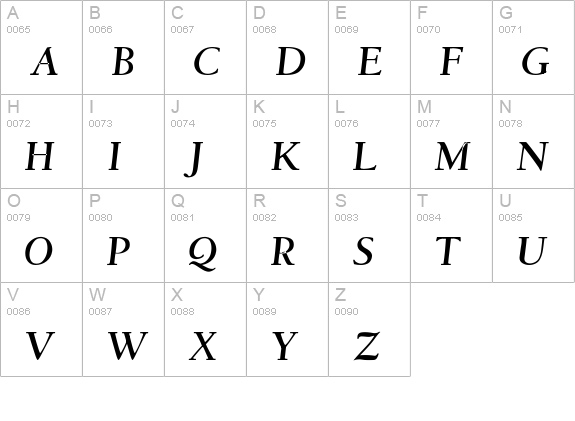
PCHeatherville Font Details
Introducing PCHeatherville font, a delightful and versatile typeface that adds a touch of elegance and sophistication to any design project. With its graceful curves and refined letterforms, PCHeatherville effortlessly captures attention and exudes a sense of timeless beauty. This font is perfect for a wide range of applications, from branding and logo design to invitations and editorial layouts. Its clean lines and balanced proportions make it highly legible, ensuring that your message is easily conveyed to your audience. But what truly sets PCHeatherville apart is its unique feature: it is absolutely free! Yes, you read that right. This premium-quality font is freely available to download at FontsMarket.com. Now you can elevate your designs without breaking the bank. Whether you're a professional designer or a casual enthusiast, PCHeatherville offers endless possibilities for creativity. Its extensive character set includes uppercase and lowercase letters, numerals, punctuation marks, and special characters, allowing you to bring your vision to life with ease. The versatility of PCHeatherville knows no bounds. Its timeless appeal seamlessly adapts to various design styles, from classic and elegant to modern and minimalist. It effortlessly enhances the look and feel of your projects, making them stand out from the crowd. Furthermore, PCHeatherville's ease of use and compatibility with different design software ensure a hassle-free experience. It works seamlessly with popular programs like Adobe Photoshop, Illustrator, and InDesign, allowing you to effortlessly incorporate it into your workflow. So why wait? Download PCHeatherville font today from FontsMarket.com and unlock a world of design possibilities. Whether you're working on a personal project or a client's brief, this exquisite font will elevate your designs to new heights. Get ready to impress with PCHeatherville – the free font that combines beauty, versatility, and accessibility.